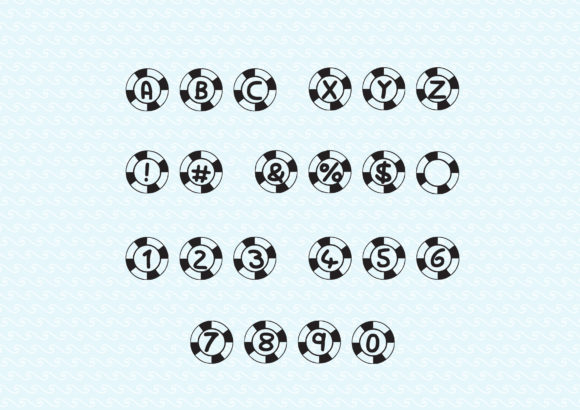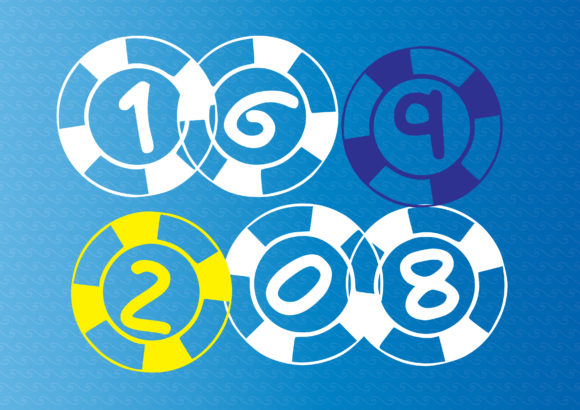
Introduction to Play Life Ring Font
Play Life Ring is a set of life rings with a playful, child-like decorative font perfect to spell out anything to do with the sea, beaches, and water.
Handwritten with rounded sides make it a friendly and joyful font Great for schools, home teaching, or a craft project.